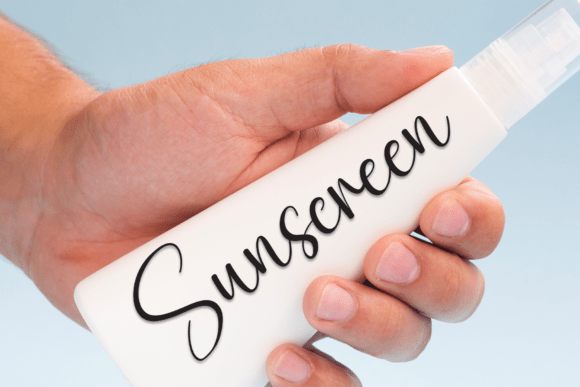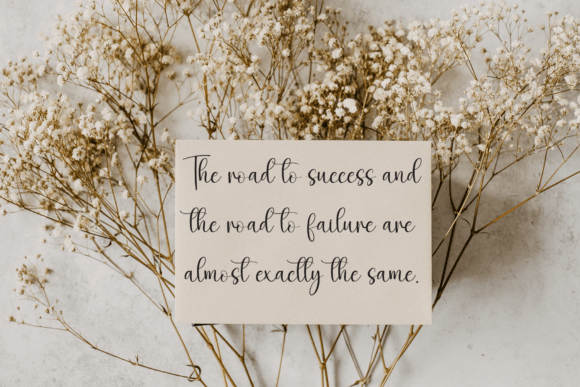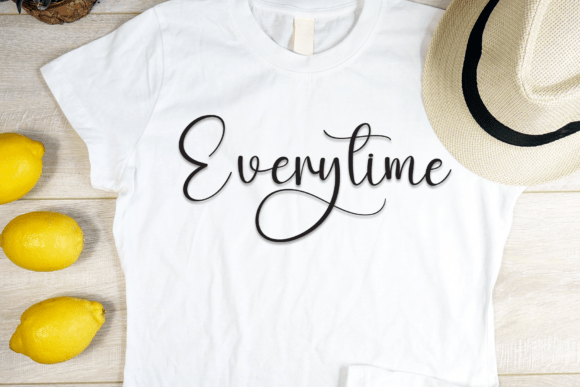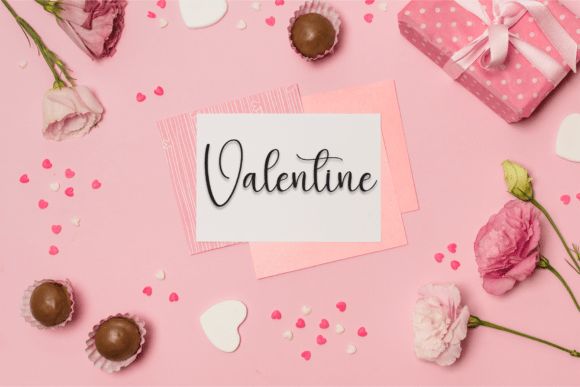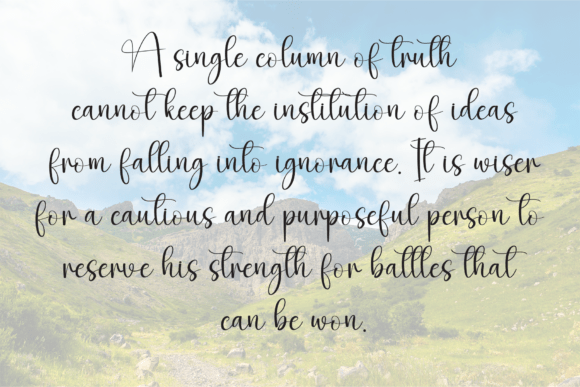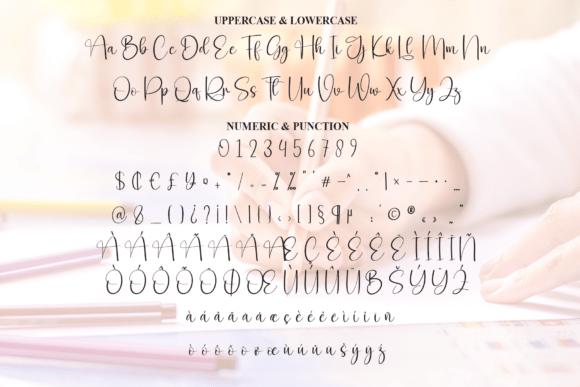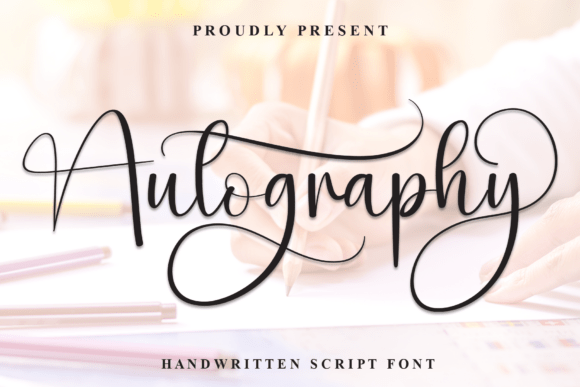
Introducing the Autography Font: Elevate Your Designs with Elegance and Charm
Are you looking for a font that can add a touch of sophistication to your designs? Look no further than the Autography Font. This elegant, flowing script font is perfect for a variety of design projects, including weddings, branding, social media, and invitations. Its smooth curves and graceful swashes bring a handwritten, romantic feel to your text, making it ideal for crafters and designers who want to add a personal and stylish flair to their work.
The Characteristics of Autography Font
The Autography Font is a true gem in the world of typography. Its elegant, cursive script features:
- Smooth curves: The font’s smooth curves create a sense of fluidity and continuity, making it perfect for designs that require a touch of elegance.
- Graceful swashes: The font’s swashes add a decorative touch to your text, elevating it with a sense of sophistication and refinement.
- Handwritten feel: The Autography Font has a distinctly handwritten feel, making it perfect for designs that require a personal touch.
- Romantic charm: The font’s elegant, cursive script is infused with a romantic charm that is sure to captivate your audience.
The Autography Font is a versatile font that can be used in a variety of design projects, including:
- Weddings: The font’s elegant, romantic charm makes it perfect for wedding invitations, ceremony programs, and wedding websites.
- Branding: The Autography Font can be used to create a sophisticated brand identity, including logos, business cards, and letterheads.
- Social media: The font’s elegant script is perfect for social media graphics, including Instagram posts, Facebook updates, and Twitter headers.
- Invitations: The font’s formal, yet elegant script makes it perfect for formal invitations, including birthday parties, baby showers, and graduations.
Adding a Personal and Stylish Flair to Your Designs
The Autography Font is designed to add a personal and stylish flair to your designs. Whether you’re crafting a signature logo or a heartfelt quote, this font is sure to elevate your text with its elegant, flowing script. Here are a few ways you can use the Autography Font to add a personal touch to your designs:
- Signature logos: Use the Autography Font to create a sophisticated signature logo that reflects your brand’s personality and style.
- Heartfelt quotes: The font’s romantic charm makes it perfect for sharing heartfelt quotes on social media or in your designs.
- Custom illustrations: The Autography Font can be used to add a personal touch to your custom illustrations, including watercolor designs and hand-drawn graphics.
Tips for Using the Autography Font
Here are a few tips for using the Autography Font in your designs:
- Pair it with a sans-serif font: Pair the Autography Font with a sans-serif font to create a striking contrast that adds visual interest to your design.
- Use it sparingly: Use the Autography Font sparingly to add a touch of elegance to your design. Overusing the font can make your design look cluttered and overwhelming.
- Experiment with colors: The Autography Font looks stunning in a variety of colors, including metallic colors, pastels, and rich jewel tones.
In conclusion, the Autography Font is a beautiful, elegant script font that is perfect for designers and crafters who want to add a touch of sophistication to their designs. Its smooth curves, graceful swashes, and handwritten feel make it ideal for a variety of design projects, including weddings, branding, social media, and invitations. With its versatility and elegance, the Autography Font is sure to become a staple in your design toolkit.